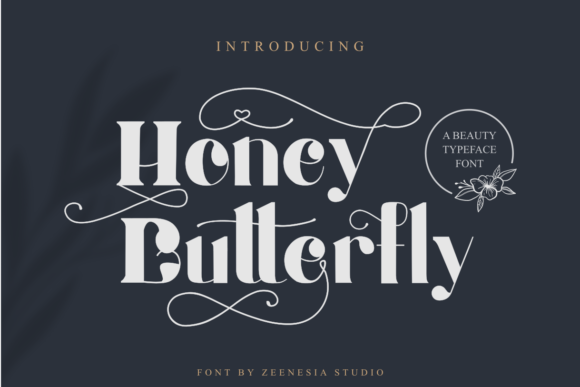
In a realm where creativity reigns supreme, allow us to introduce the Honey Butterfly Font, a captivating display font ready to elevate your designs to new heights. Crafted with meticulous care by the talented zeenesia, this font exudes elegance and uniqueness that will leave you utterly spellbound.
Honey Butterfly Font is not merely a font; it's an artistic masterpiece, a symphony of visual delight. Its carefully crafted curves and delicate flourishes evoke a sense of grace and charm, inviting you to embark on a creative journey like never before. With Honey Butterfly Font as your companion, your designs will blossom into works of art, capturing hearts and igniting imaginations.
Imagine your band's website adorned with the Honey Butterfly Font. Its enchanting allure will captivate your audience, drawing them into a world of musical wonder. Each letter dances with rhythm, each word resonates with melody, creating an immersive experience that leaves a lasting impression.
Beyond the realm of music, Honey Butterfly Font flourishes in a myriad of creative endeavors. It adds a touch of elegance to wedding invitations, imbues sophistication into branding materials, and transforms social media posts into captivating works of art. Its versatility knows no bounds, making it the perfect choice for designers, artists, and creative entrepreneurs alike.
With Honey Butterfly Font, you possess the power to craft designs that captivate and inspire. Its enchanting beauty will leave your audience breathless, its versatility will empower you to explore endless creative possibilities. Embrace the Honey Butterfly Font and unlock a world where creativity knows no limits.